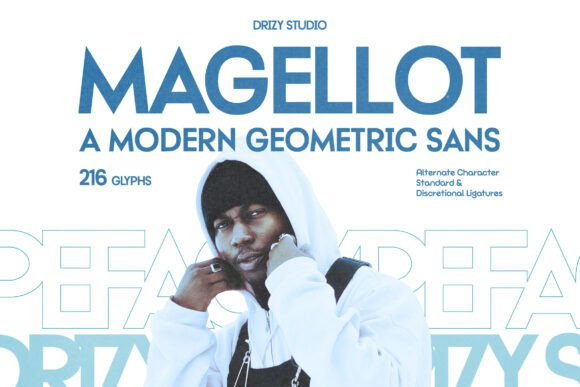
Magellot: A Modern Sans Serif for Bold Design Statements
First Impressions: Clean, Confident, and Contemporary
When I first encountered Magellot, it immediately stood out as a premium font with a strong visual character. Its clean lines and subtle geometric touches give it a modern yet approachable feel. It doesn’t scream for attention but carries a quiet confidence that makes it ideal for projects where clarity and sophistication are key.
The letterforms have a balanced weight, with just enough contrast to avoid feeling flat. The rounded terminals on the lowercase letters add a touch of warmth, preventing the typeface from appearing too rigid. This blend of structure and softness makes Magellot feel both professional and inviting—perfect for brand identities that want to strike a balance between authority and approachability.
Real-World Applications: Where Magellot Shines
Magellot is versatile enough to handle a wide range of design scenarios. In logo design, its crisp edges and consistent stroke weights make it a solid choice for creating memorable brand marks. It works particularly well when paired with minimal graphics or abstract shapes, allowing the typography to take center stage.
In packaging design, Magellot adds a layer of professionalism without overwhelming the product. Whether it's used on product labels, gift boxes, or retail displays, its readability ensures that information is communicated clearly, even at smaller sizes.
For web design, especially in website headers and blog graphics, Magellot provides a modern aesthetic that complements both minimalist and bold layouts. It holds up well on screens, maintaining legibility across different resolutions and devices.
On social media graphics, Magellot can be used to create eye-catching headlines or short promotional messages. Its clean look ensures that text remains readable even when layered over vibrant backgrounds or images.
It’s also a great fit for printable products like Canva templates, Cricut projects, and merchandise. The font scales well, making it suitable for everything from t-shirts to business cards.
Where to Use with Caution
While Magellot is a strong performer, it’s not a one-size-fits-all solution. It excels in large headlines and short phrases, but may not be the best choice for long blocks of supporting text. Its geometric structure can feel a bit sterile when stretched across multiple paragraphs, which could affect readability and engagement.
If you're using it in brand marks or quotes, be mindful of spacing and kerning. While the font has good default spacing, certain combinations might need manual adjustment for optimal visual harmony.
It also pairs best with other fonts that complement its structured nature. Try it alongside a serif font for a classic contrast or a script font for a more decorative effect. However, avoid pairing it with overly ornate or handwritten styles, as they might clash with its clean silhouette.
Readability and Brand Impact
One of the most important aspects of any typeface is how it affects readability. Magellot performs exceptionally well in this regard. Its clear forms and open counters make it easy to read at various sizes, from small footnotes to large banners.
This makes it an excellent choice for editorial design, where content needs to be scannable and digestible. It helps maintain brand consistency by reinforcing a visual tone that aligns with a company’s identity—whether that’s modern, innovative, or trustworthy.
Its use in digital ads and marketing visuals can subtly influence audience trust and professionalism. A clean, well-designed font signals attention to detail and quality, which can improve recognition and engagement with your audience.
Designer Notes: Practical Tips for Using Magellot
Before committing to Magellot for a project, test it in black and white to ensure it maintains its visual appeal without color. Check how it looks at small sizes, especially if it will be used in printable design or digital products.
Try it on real mockups to see how it interacts with different textures, colors, and backgrounds. Pay attention to how the uppercase and lowercase versions compare in terms of balance and rhythm.
Review the spacing carefully, especially if you plan to use it in logos or brand identity work. A slight tweak in tracking or leading can significantly enhance its impact.
Test it beside other font families—like a serif font, sans serif font, script font, or handwritten font—to find the best font pairing for your project. This will help maintain a cohesive visual mood while adding depth to your design.
A Font That Works Harder Than It Seems
Magellot is more than just another sans serif font. It’s a thoughtful addition to any designer’s toolkit, offering a unique blend of modernity and reliability. Whether you’re working on brand identity, packaging design, or social media graphics, it brings a level of professionalism that enhances every project it touches.
Its strength lies in its ability to adapt—whether you’re designing for print, web, or digital products. As long as you use it thoughtfully and pair it wisely, Magellot can become a trusted staple in your creative workflow.